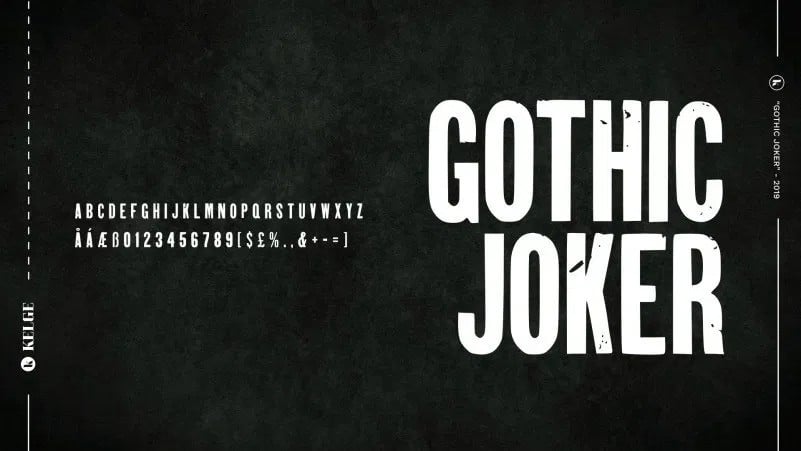
Gothic Joker Display Font
Gothic Joker Display Font is a bold, retro inspired typeface and it’s great for headlines, logos, brandings, label, posters etc.
Carefully handcrafted six styles give you many possibilities to use – Regular for modern designs, Rough and Print for vintage projects. Enjoy!